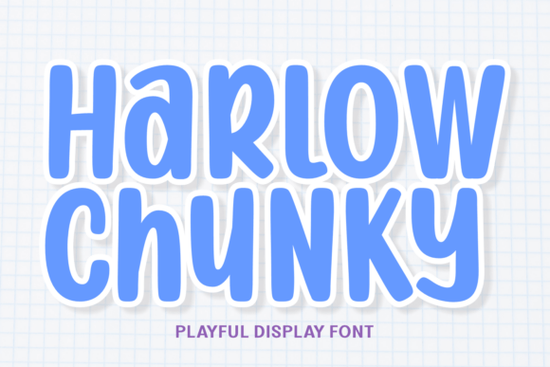
If you've been looking for a display font that feels fun, bold, and full of personality, Harlow Chunky Font might be exactly what you need. It's a playful, thick-lettered typeface with a candy-shop vibe and a sticker-like white border that gives it a youthful, energetic look. Whether you're designing for kids' products, birthday invitations, or casual gaming visuals, this font brings a bubbly energy that's hard to miss.
What Does the Harlow Chunky Font Look Like?
This font is all about bold, rounded shapes. Each letter has soft, curved edges and a thick outline that mimics a sticker offset. The design uses geometric forms paired with hand-drawn sparkles and a multi-colored scheme, giving it a cheerful, playful feel.
Some key visual traits include:
- Thick, rounded letterforms with heavy visual weight
- White border effect that creates a sticker-like appearance
- Geometric shapes blended with bouncy, hand-drawn energy
- Bright, candy-inspired tones that pop off the background
Despite its bold and maximalist style, the font stays legible. You can use it on busy or colorful backgrounds without losing readability a big plus for designers working on layered compositions.
Where Can You Use This Font?
The Harlow chunky display style works well across a range of projects. Its childlike charm and chunky weight make it especially suited for:
- Children's product packaging toys, snacks, school supplies
- Birthday party invitations and event decorations
- YouTube thumbnails and social media graphics
- Digital planner stickers and printable designs
- Summer camp flyers and activity posters
- Casual gaming interfaces and app UI elements
- Toy line branding and kids' merchandise
If you create print-on-demand products, this font could work nicely on t-shirt designs, stickers, and party supply templates. The bold weight ensures it looks sharp even at larger sizes on physical products.
How Does It Compare to Other Playful Display Fonts?
Creative Fabrica has a wide collection of display fonts with different vibes. If you like the sweet, playful look, the sweet honey-inspired alternative offers a similarly warm, friendly feel but with a slightly different character style.
For projects that call for a bolder, more layered approach, a chunky two-tone style combines heavy weight with a duo-tone effect that works well for headers and logos.
On the other hand, if your project leans more toward outdoor or rustic themes say, for a summer flower-themed design you might prefer something with more organic, flowing shapes. And if you're working on a completely different aesthetic, like vintage western-style typography, you'd want something with more aged, rugged character instead.
Comparing options helps you pick the right fit. Harlow's sweet spot is really that fun, bubbly, kid-friendly space where playful energy matters most.
Does It Work for Both Print and Web?
Yes. This font is designed for both print and digital use. That means you can apply it to:
- Printed flyers, posters, and packaging
- Web graphics, social posts, and banner ads
- Digital planners, stickers, and wallpapers
The bold weight holds up well in print, while the clean shapes render clearly on screens. For POD sellers, this dual compatibility is useful you can design once and use the same font across your product line and online storefront.
What Should You Pair It With?
Because Harlow is so bold and expressive on its own, it pairs best with simple, clean body fonts. Think of sans-serifs with low contrast and neutral tones. You want the supporting text to stay out of the way so Harlow can do its job as a headline or display font.
Avoid pairing it with another heavy or decorative font. That combination tends to feel cluttered and hard to read. A light, minimal sans-serif will balance things out nicely and keep your layout looking polished.
Quick Checklist Before You Start Designing
- ✅ Check the font license for your intended use (personal, commercial, POD)
- ✅ Test it at the actual size you'll use it's bold, so smaller sizes may not work well
- ✅ Pair with a clean, simple body font for contrast
- ✅ Try it on both light and dark backgrounds to see how the sticker border reads
- ✅ Use it sparingly a little of this font goes a long way in any layout
If you're working on kids' products, party themes, or anything that needs a cheerful, bold look, browsing the Harlow Chunky Font is worth your time. It's a solid choice for designers and crafters who want to add a pop of fun to their work without sacrificing readability.